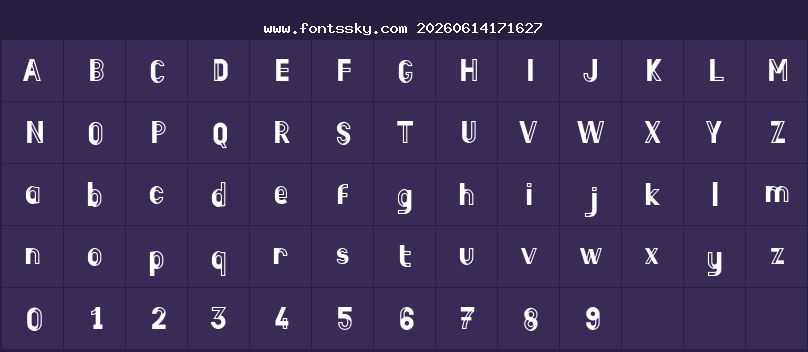
About Boisu Stroke.otf
Boisu Stroke.otf is a modern, elegant sans-serif font designed for ultimate readability and visual harmony. Perfect for branding, headlines, web design, and print materials.